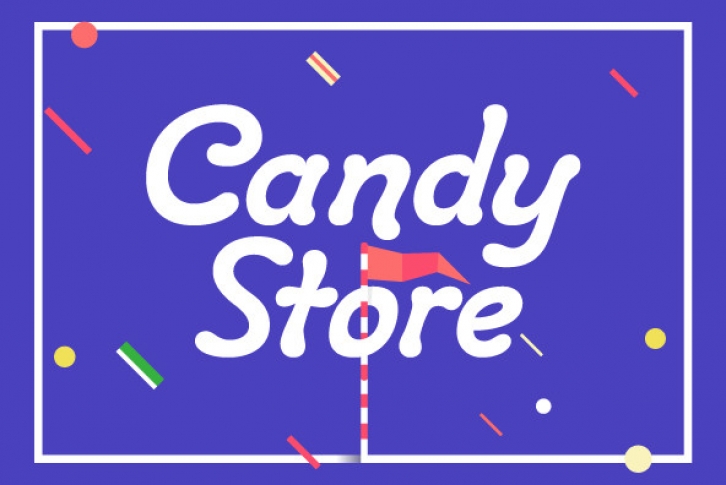
Toffee is based on the Art Noveau typeface Regina Cursive. Toffee contains avery playful and funky sense to its alphabet flow, works great in retro and children's projects.